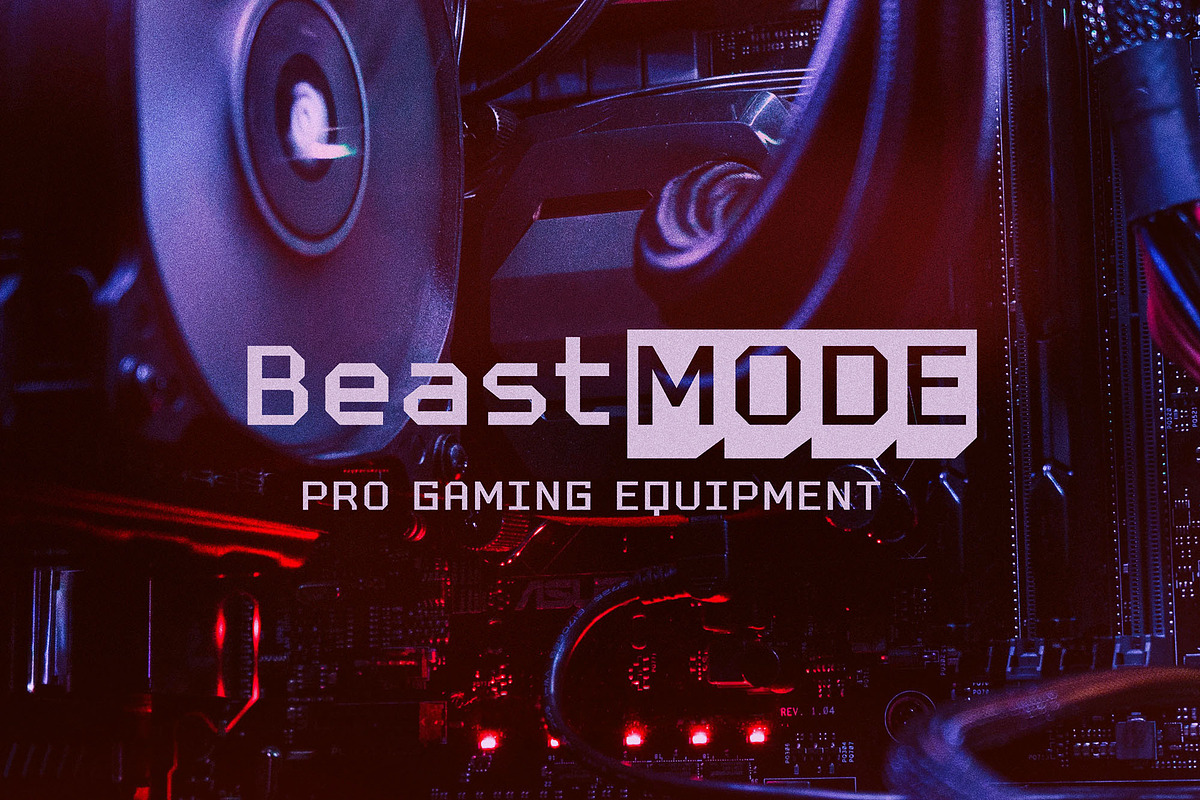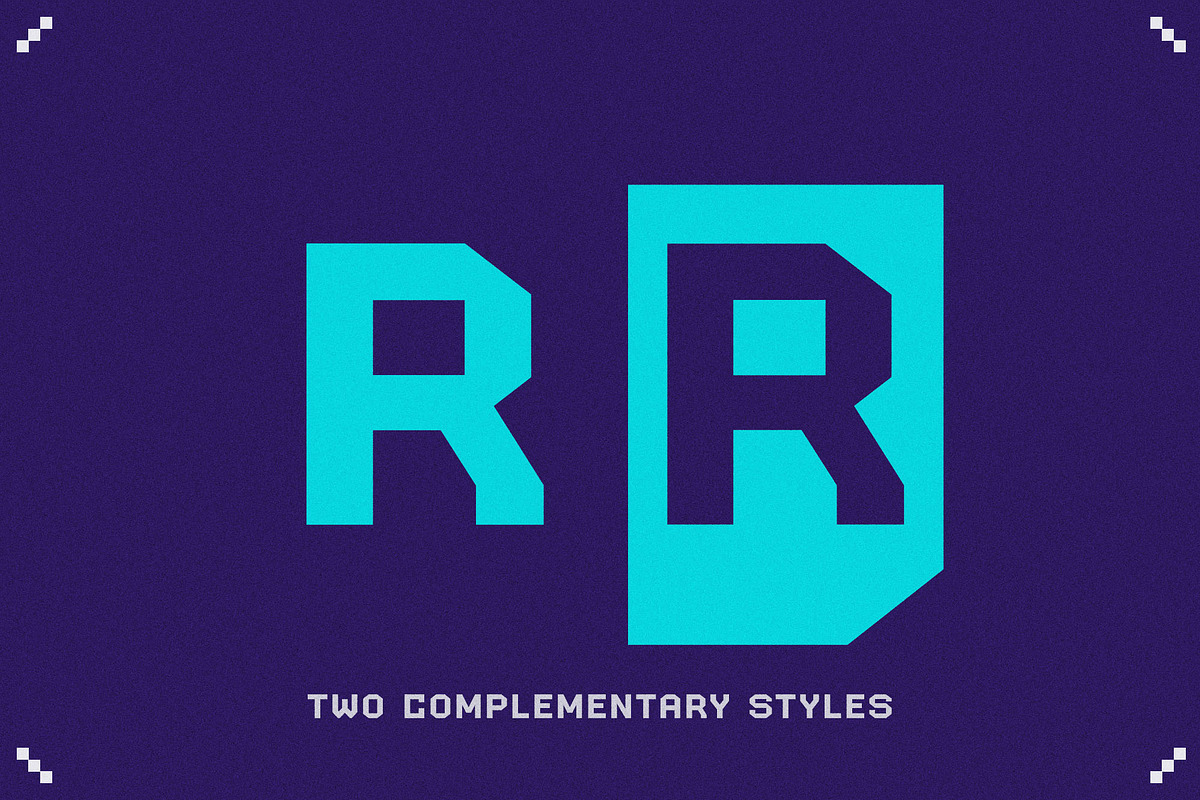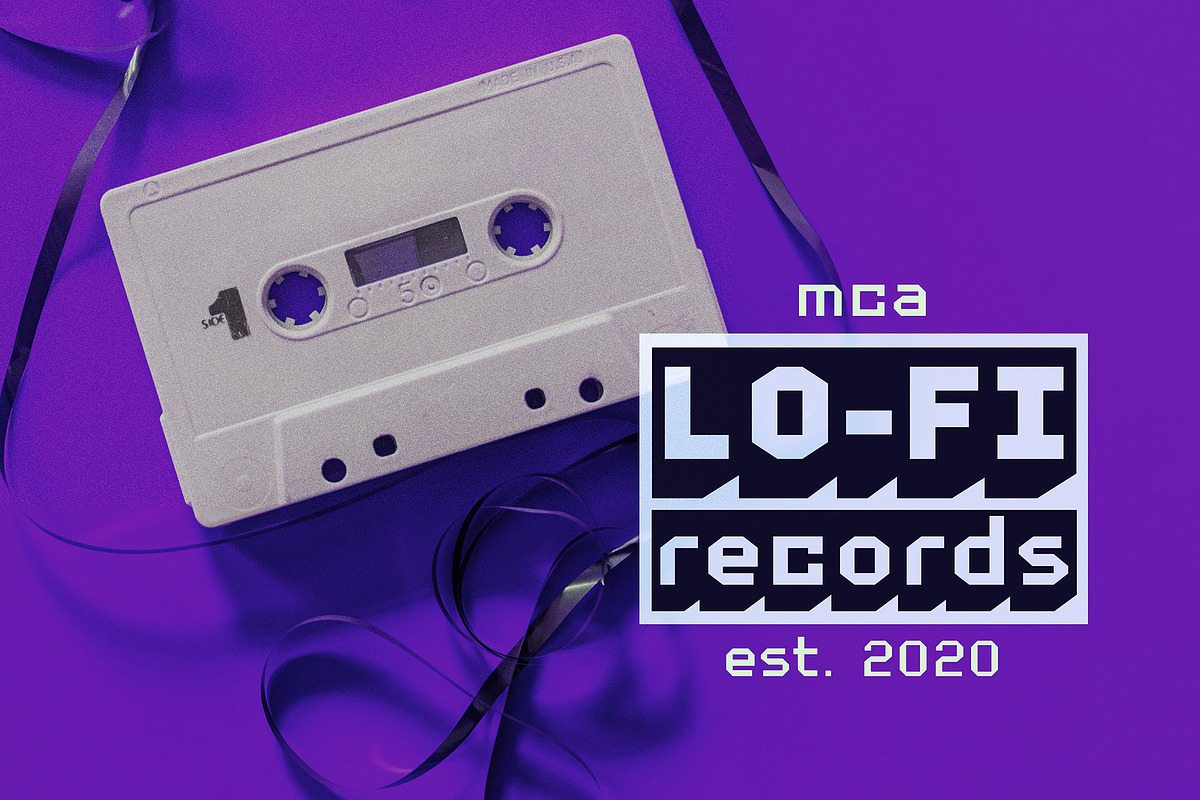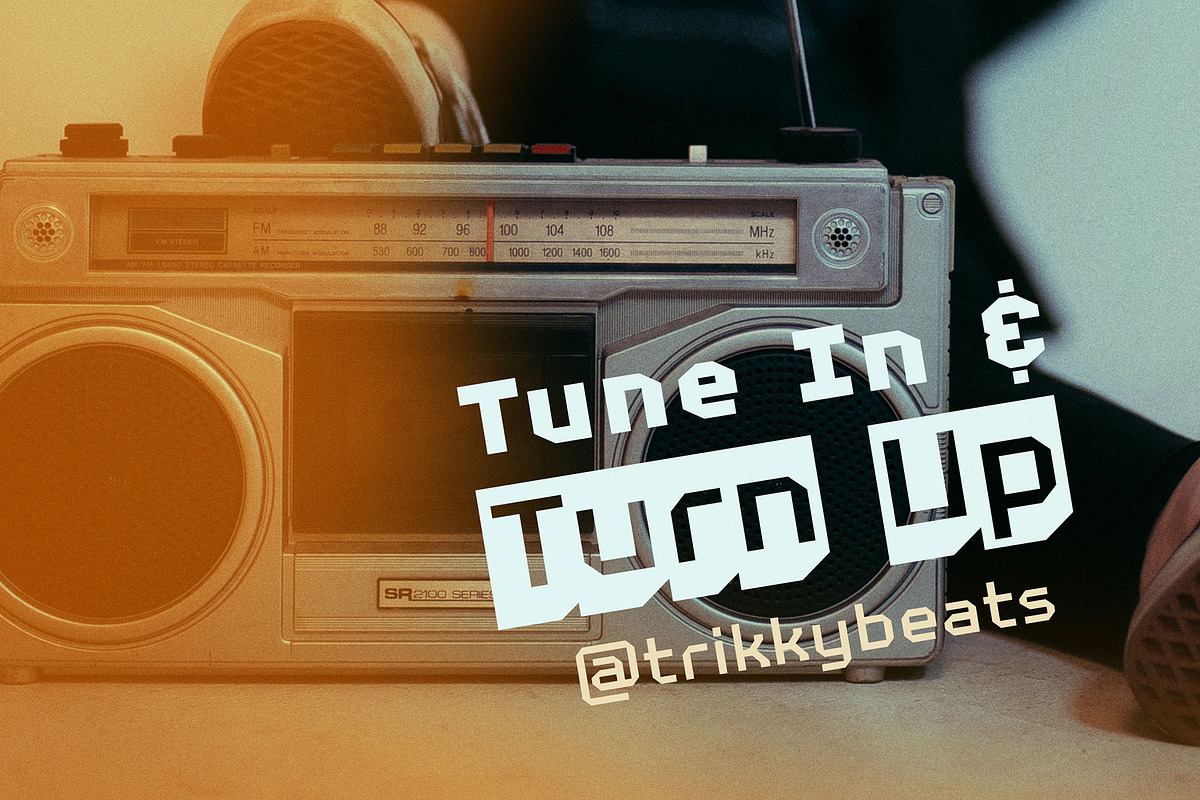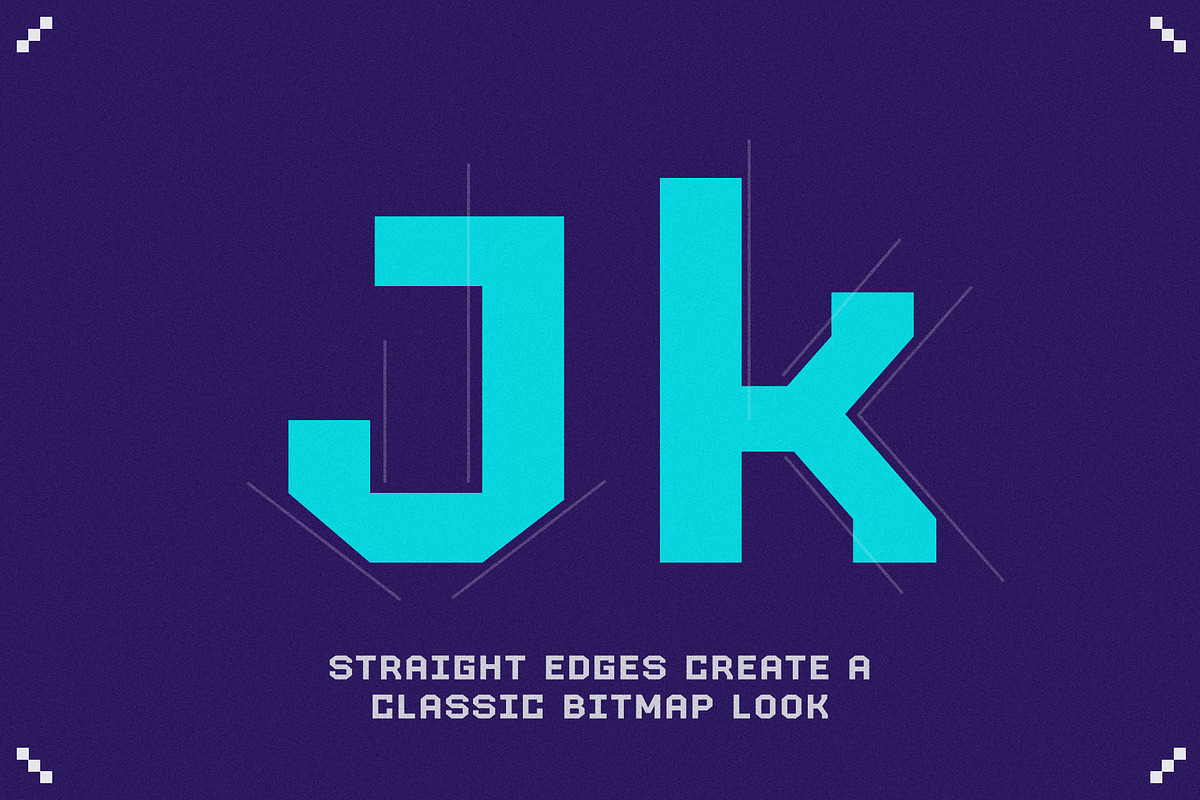
RETRO 86 Old School Computer Font
Introducing RETRO-86 - A modern take on old-school computer graphic fonts.
RETRO-86 was inspired by the low-resolution computer graphics of the 1970s, 80s, and 90s seen in classic games and on computer screens and interfaces. RETRO-86 features a beautifully limited, blocky design and is perfect for projects relating to the tech industry, the gaming world, and nostalgic work from the late 20th century.
RETRO-86 is also a hyper versatile typeface. It comes in 2 complementary styles (regular, and shadow) and features 8 weight options!
- With Version 1.1, RETRO-86 now includes diacritics and additional characters for multilingual support!